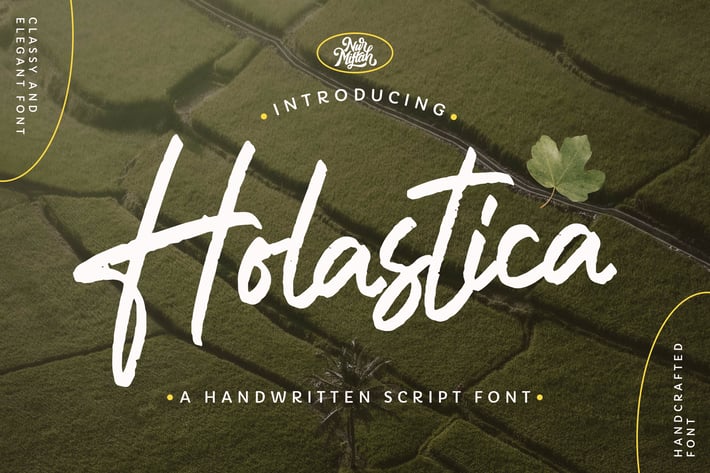
Holastica - Handwritten Font
Holastica Font can be used for various media like special events,
invitation, packaging, poster, wedding, movie titles, book titles,
social media, logos, branding, and others.